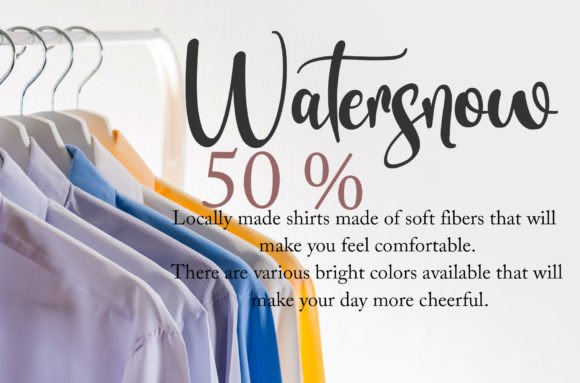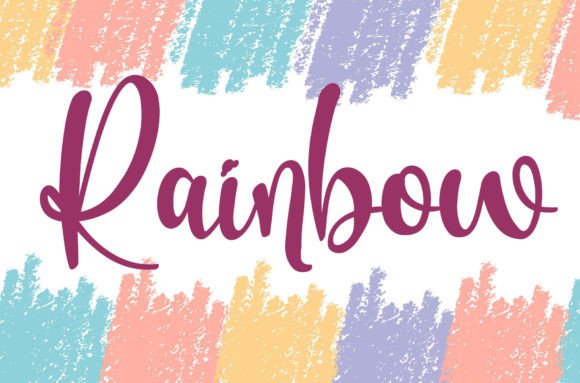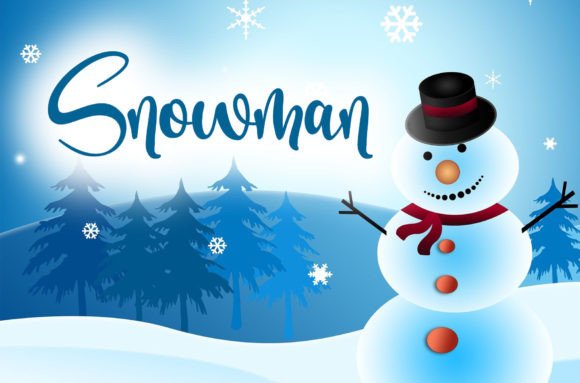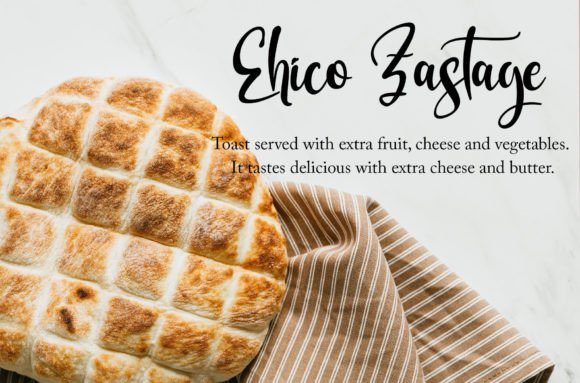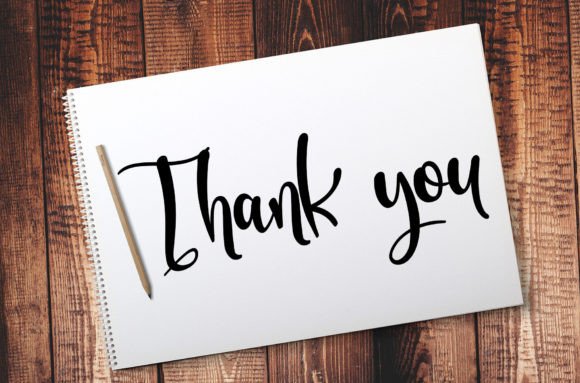
Hanymoon Font
About Hanymoon Font
Hanymoon font is a beautifully crafted calligraphic typeface that exudes sweetness and romance. With characters gracefully dancing along the baseline, it brings a lively, elegant feel to any design. This font is perfect for adding a splash of luxury and sophistication to your creative projects, whether you’re working on wedding invitations, branding materials, or stylish stationery.
Romantic and Elegant Style
The charm of the Hanymoon font lies in its romantic style. Its flowing strokes and delicate curves create a sense of warmth and intimacy. This makes it an excellent choice for projects that require a tender and elegant touch, especially those related to weddings and celebrations of love.
Versatile Applications
Beyond wedding designs, the Hanymoonfont fits a wide variety of creative needs. Use it for luxury branding, greeting cards, social media graphics, and product packaging. Its refined appearance enhances your designs by adding a classic yet modern flair.
Enhancing Your Design Projects
Whether you’re designing logos, invitations, or digital content, Hanymoonfont adds personality and elegance. Its calligraphic nature makes every letter feel handcrafted, giving your projects a unique and memorable quality.
Why Choose Hanymoon Font?
Choosing Hanymoonfont means embracing a timeless calligraphic style that combines beauty and functionality. It’s readable yet decorative, making it ideal for both display and text use. This font will elevate your designs and captivate your audience with its luxurious charm.
Bring Luxury to Your Creations
Add Hanymoonfont to your creative toolkit and infuse your designs with its romantic elegance. Perfect for designers seeking to create heartfelt, luxurious, and visually appealing projects, this font is sure to become a favorite.